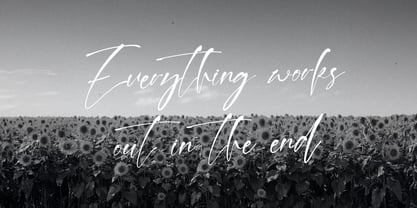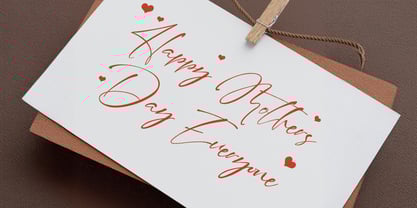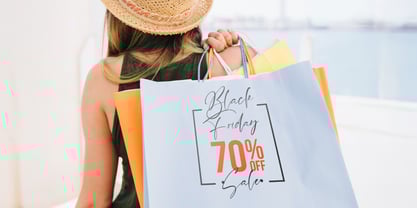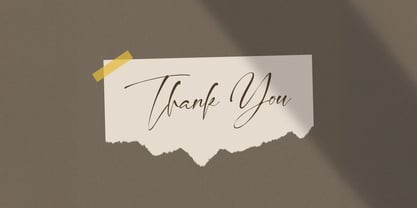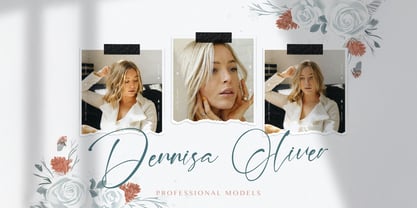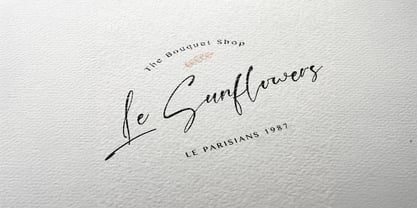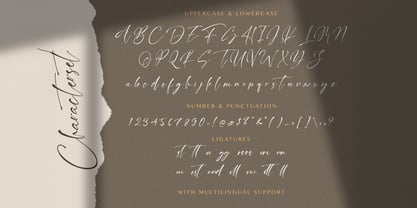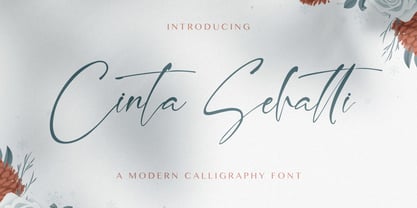
Cinta Sehatti
by Stringlabs Creative Studio
The Cinta Sehatti Font Family was designed by Virgiawan Listanto and published by Stringlabs Creative Studio. Cinta Sehatti contains 1 styles. More about this family
Fall in love with the elegant curves of Cinta Sehatti, a graceful calligraphy font that captures the essence of heartfelt expression. With flowing strokes and delicate swashes, this font brings a sense of romance and warmth to every design it touches. Perfect for wedding invitations, love letters, feminine branding, and poetic projects, Cinta Sehatti adds a timeless charm and handwritten feel that speaks directly to the heart.
Designers: Virgiawan Listanto
Foundry: Stringlabs Creative Studio